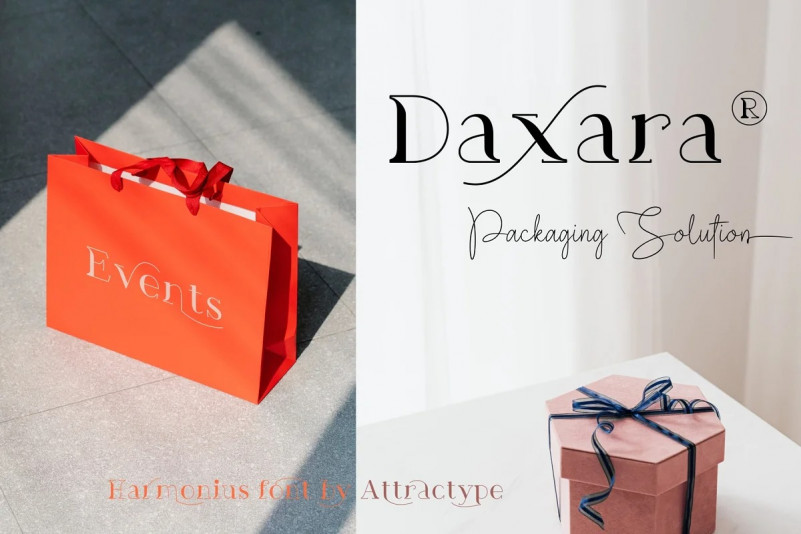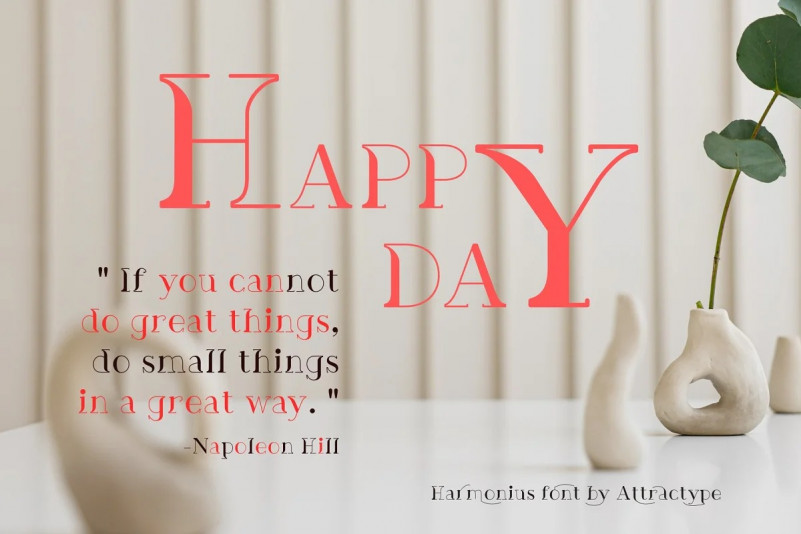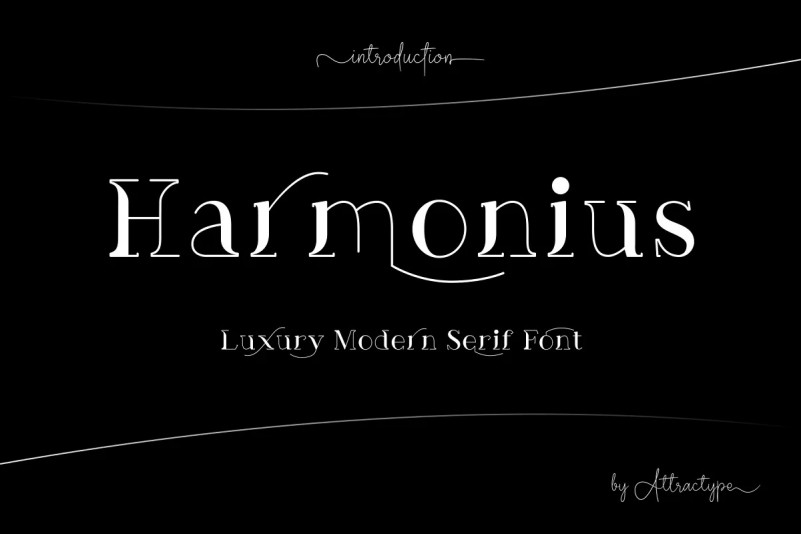
Harmonius Font
Harmonius Serif Font is a serif modern typeface that has own unique style & modern look. This typeface is perfect for an elegant & luxury company logos, book or title design, fashion, technology, magazine, clothes, lettering, quotes, and so much more.